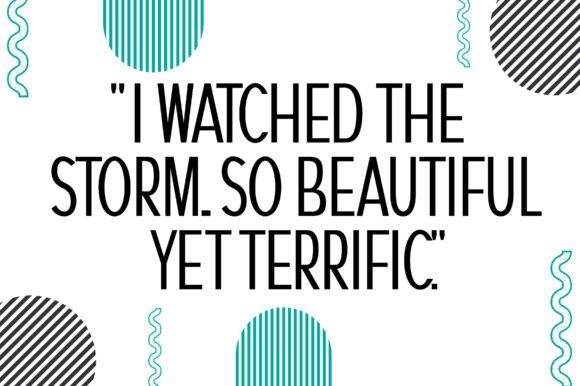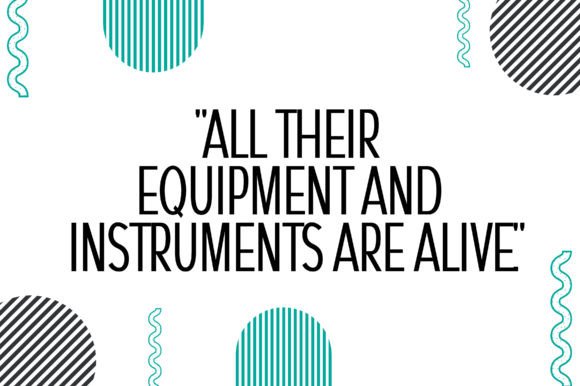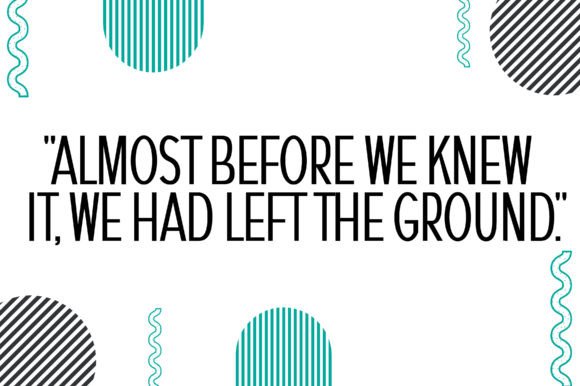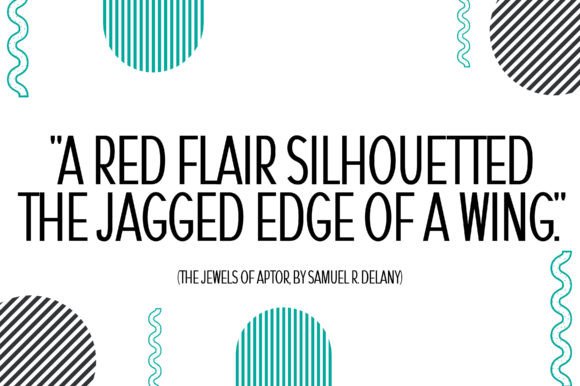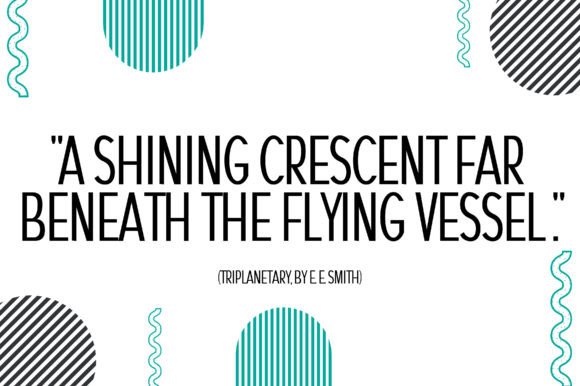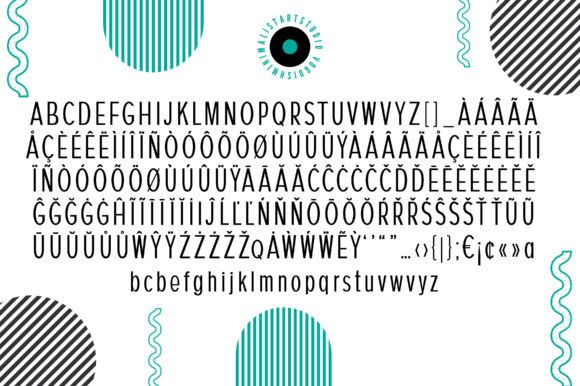
Introducing Extrude Font: The Ultimate Sans-Serif Display Typeface for Modern Designers
In the world of typography, a good font can make all the difference in a design project. For designers and crafters looking for a clean, minimalist, and versatile typeface, Extrude Font is an excellent choice. This condensed sans-serif display typeface is perfect for a wide range of design applications, from fashion design to social media graphics.
What is Extrude Font?
Extrude Font is a carefully crafted sans-serif display typeface that boasts a clean and minimalist aesthetic. Its condensed design makes it ideal for use in headlines, titles, and other display purposes where space is limited. The font’s sleek lines and simple shapes give it a modern and sophisticated look that is sure to elevate any design project.
Key Features of Extrude Font
- Condensed design: Extrude Font is designed to be compact and space-efficient, making it perfect for use in tight spaces.
- Clean and minimalist aesthetic: The font’s simple shapes and sleek lines give it a modern and sophisticated look.
- Highly versatile: Extrude Font can be paired with a wide range of fonts, making it easy to incorporate into any design project.
- Excellent legibility: The font’s clear and simple design ensures that it remains legible even at small sizes.
Design Applications for Extrude Font
Extrude Font is an incredibly versatile typeface that can be used in a wide range of design applications. Some of the most popular uses for this font include:
- Fashion design: Extrude Font is perfect for use in fashion design, from logo design to typography-driven visuals.
- Packaging design: The font’s clean and modern aesthetic makes it an excellent choice for packaging design.
- Posters and brochures: Extrude Font is ideal for use in posters and brochures, where its bold and eye-catching design can help grab attention.
- Magazine covers: The font’s sophisticated look makes it a great choice for use in magazine covers.
- Social media graphics: Extrude Font is perfect for use in social media graphics, from Facebook posts to Instagram stories.
Why Choose Extrude Font?
So why should designers and crafters choose Extrude Font for their projects? Here are just a few reasons:
- Ease of use: Extrude Font is incredibly easy to use, with a simple and intuitive design that makes it easy to get started.
- High-quality design: The font is carefully crafted to ensure that it looks great in any design project.
- Versatility: Extrude Font can be paired with a wide range of fonts, making it easy to incorporate into any design project.
- Time-saving: The font’s condensed design makes it perfect for use in tight spaces, saving designers time and effort.
Tips for Using Extrude Font
Here are a few tips for getting the most out of Extrude Font:
- Pair it with contrasting fonts: Extrude Font looks great when paired with contrasting fonts, such as bold serifs or script fonts.
- Use it for headlines and titles: The font’s bold and eye-catching design makes it perfect for use in headlines and titles.
- Experiment with different colors: Extrude Font looks great in a wide range of colors, so don’t be afraid to experiment and find the perfect hue for your design.
In conclusion, Extrude Font is an excellent choice for designers and crafters looking for a clean, minimalist, and versatile sans-serif display typeface. Its condensed design, highly legible aesthetic, and versatility make it perfect for use in a wide range of design applications. Whether you’re working on a fashion design project, creating social media graphics, or designing a magazine cover, Extrude Font is sure to be a valuable addition to your toolkit.